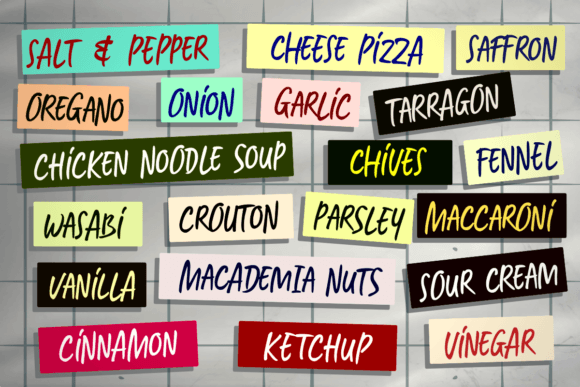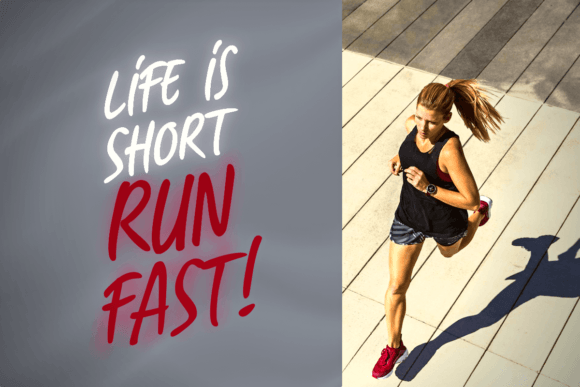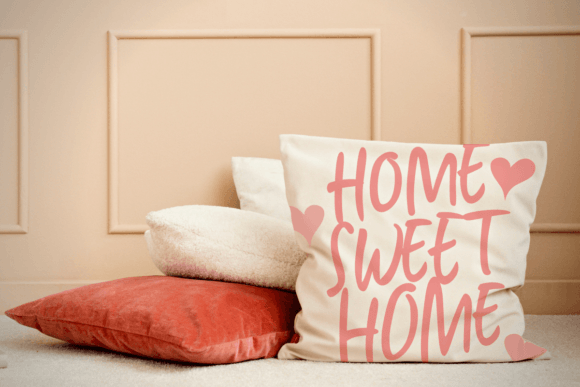
Introduction to Monday Dance Font
Monday Dance is a cool, simple and playful all caps handwritten font.
Incredibly versatile, this font fits a wide pool of designs, elevating them to the highest levels Add this font to your favorite creative ideas and notice how it makes them come alive.
Key Features of Monday Dance Font